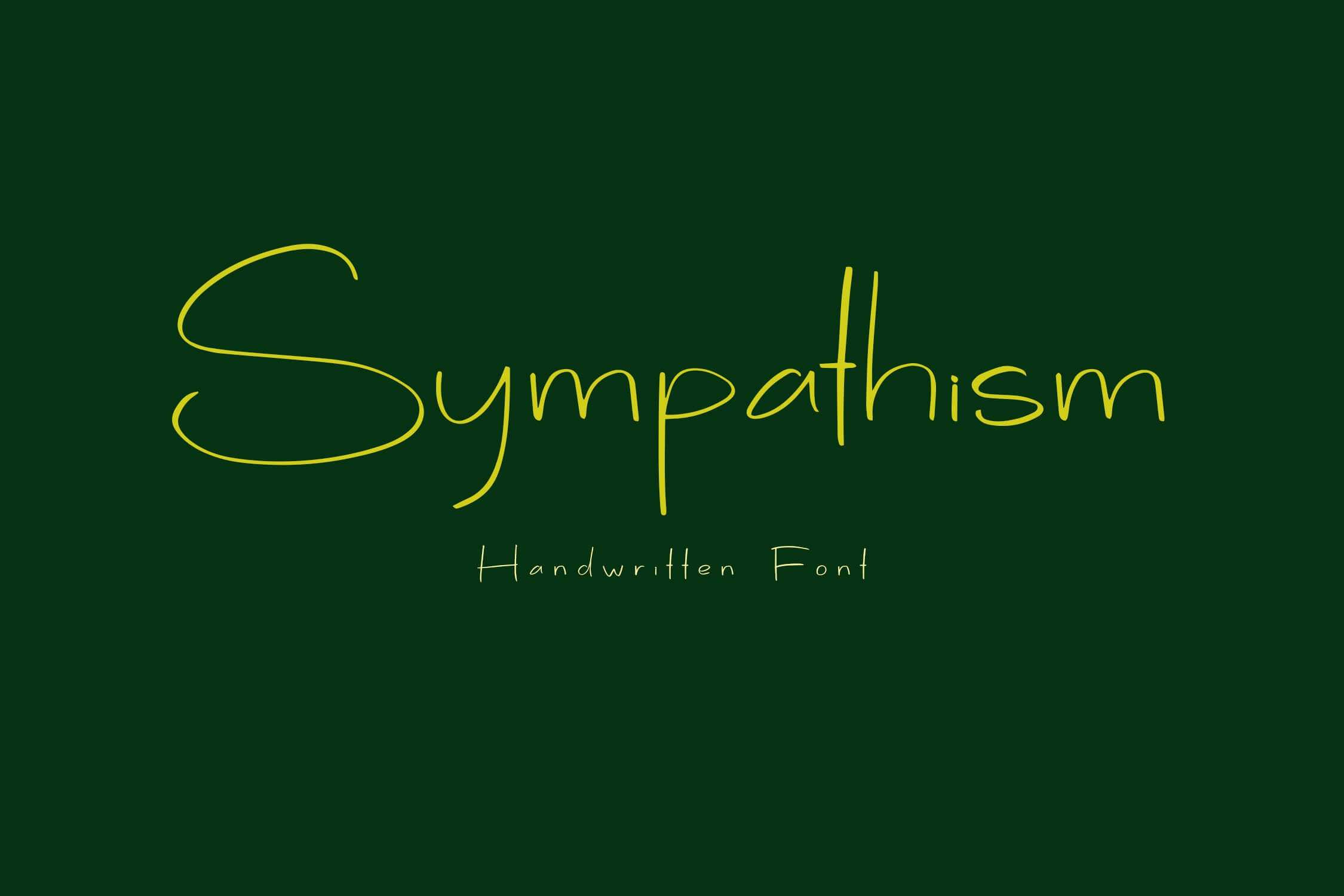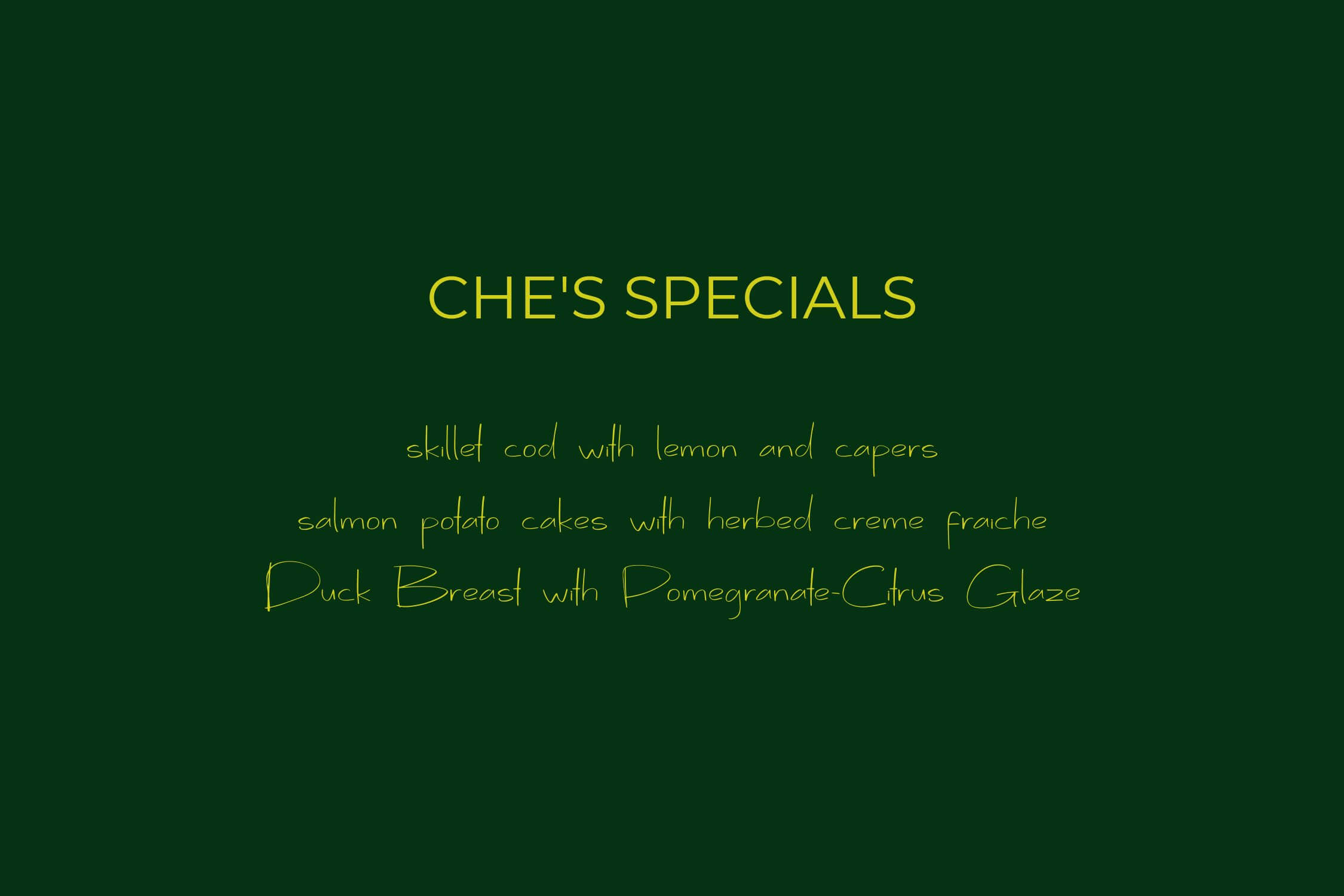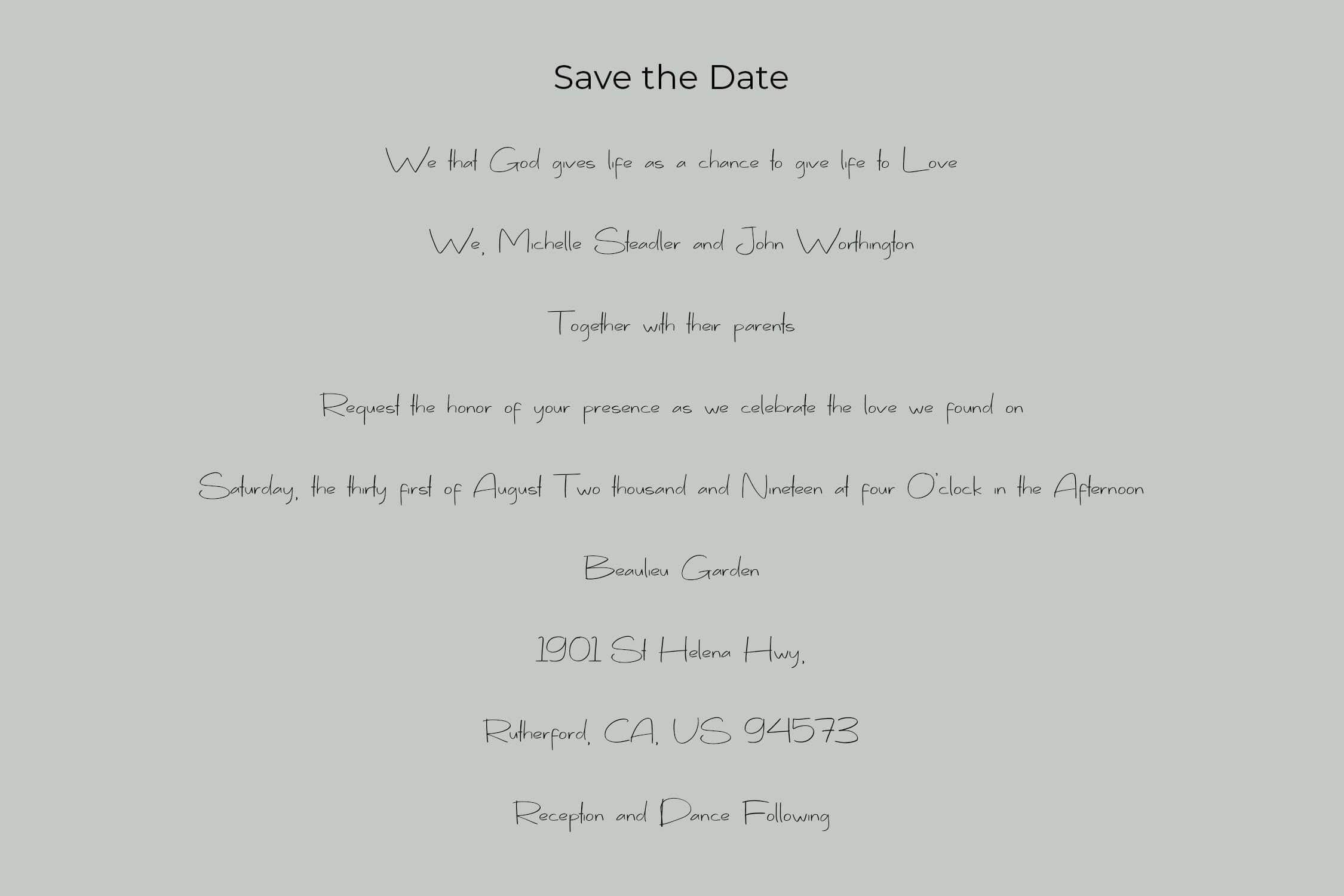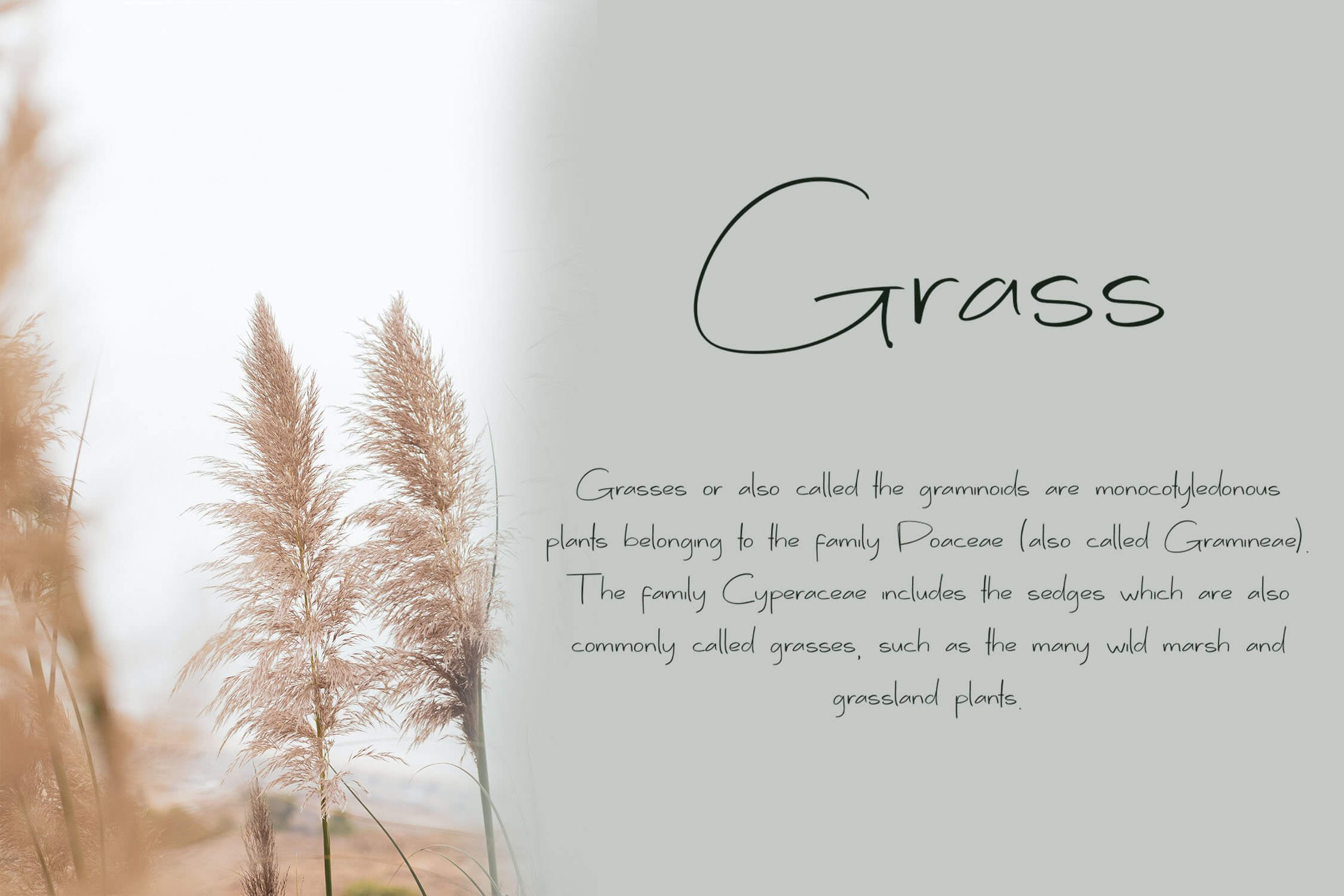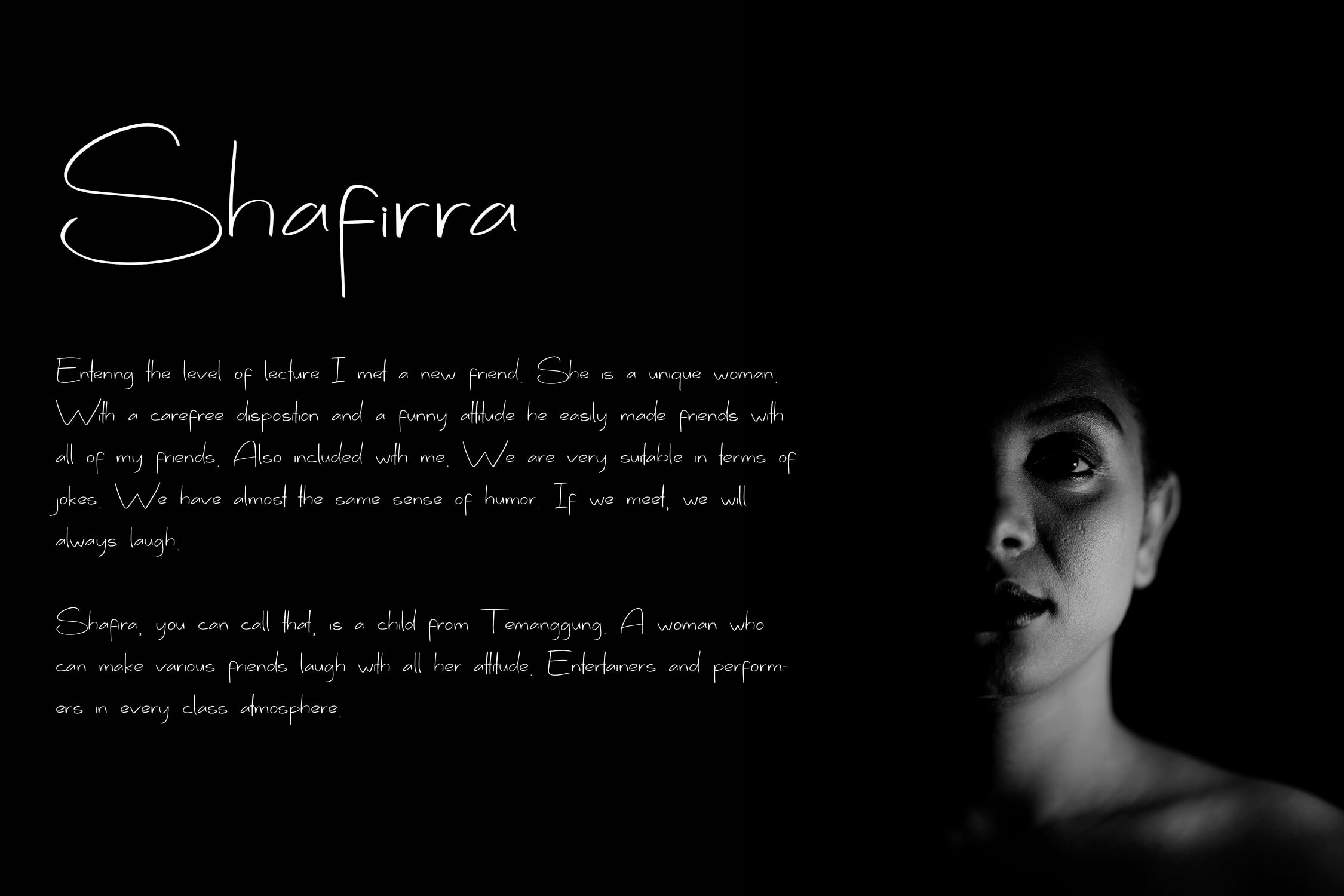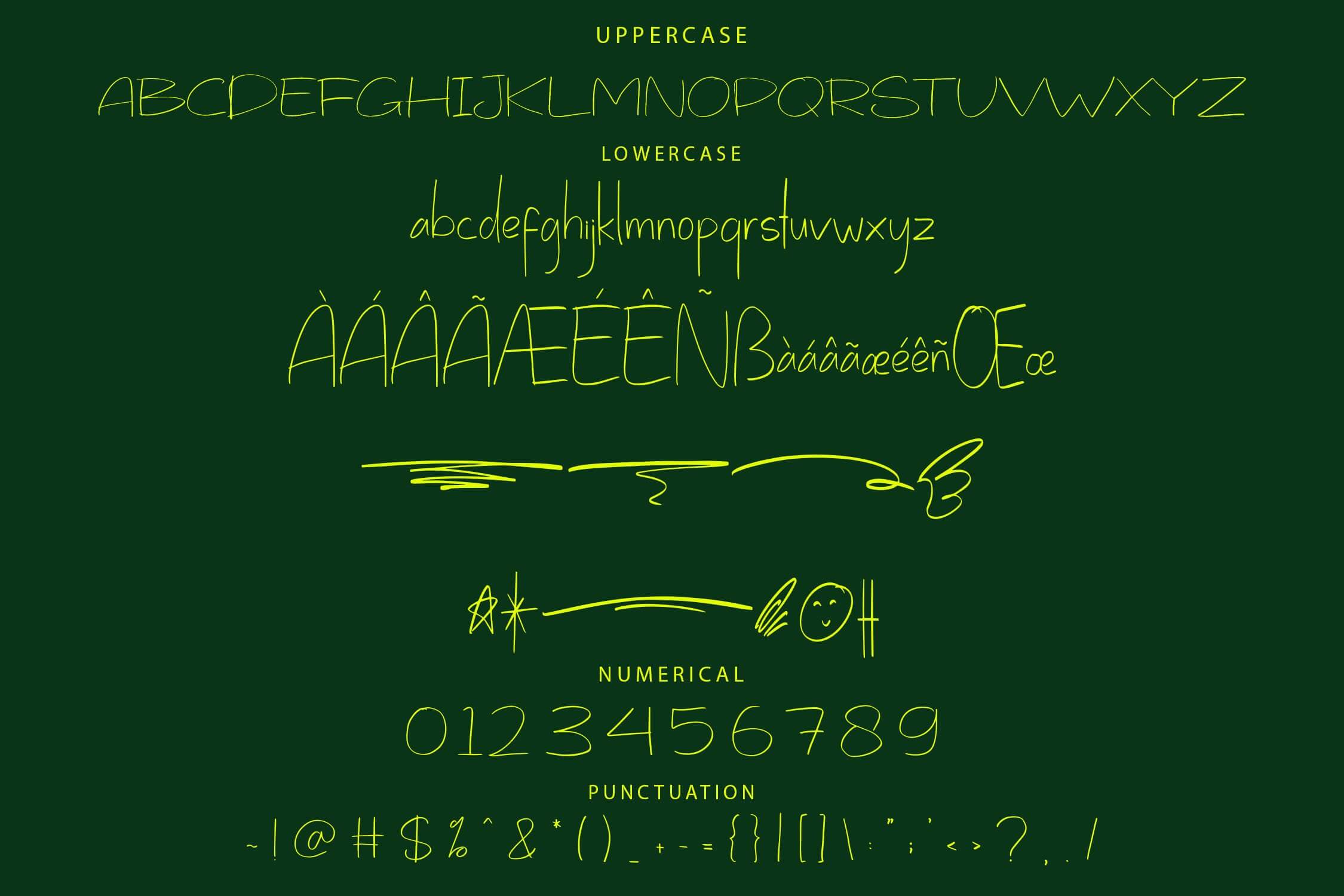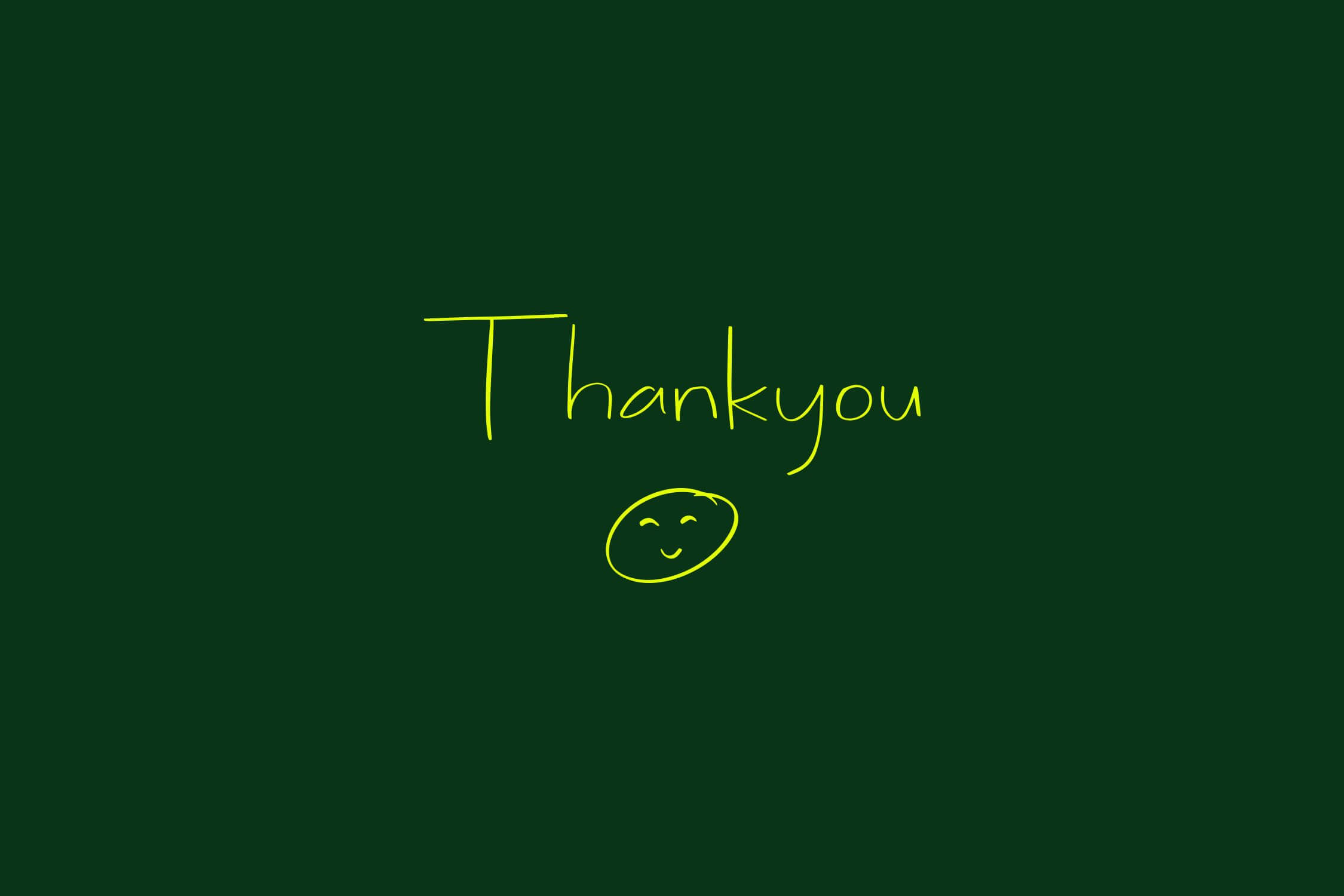
Sympathism is a dynamic handwriting font crafted with a bold handbrush style. Its unique character shapes bring an authentic, handcrafted feel to your designs, perfect for branding, packaging, invitations, and more. This font adds personality and creativity, making your projects visually appealing and expressive.
Key Features:
- Includes ligatures, stylistic alternates, and swashes
- Full multilingual support for versatile use